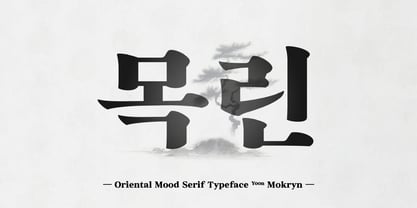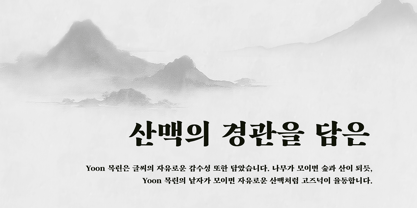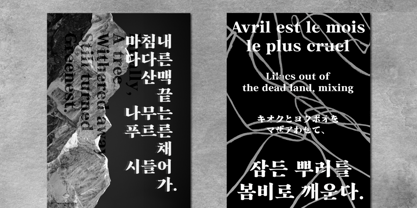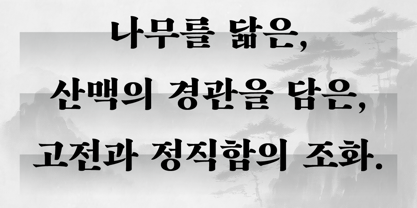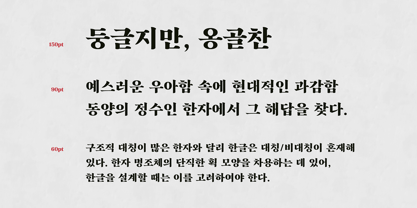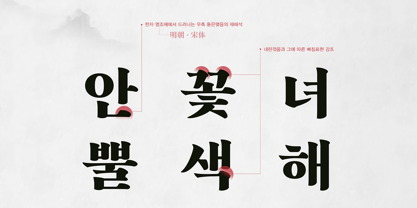
Yoon Mokryn
Yoon Mokryn is a classical display typeface inspired by traditional East Asian landscape paintings. High stroke contrast gives solidity like trees, while rhythmic spacing reflects the graceful flow of mountain ranges.
Family size: A single weight.
Glyph count: 2,780 hangeul glyphs, 95 Latin glyphs, and 986 KS symbols.
Designer: Yoon Design Team
Foundry: Yoon Design